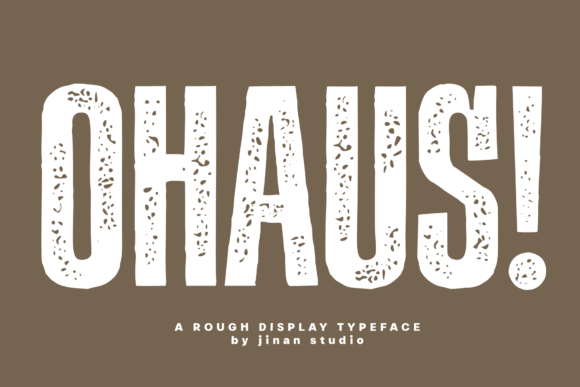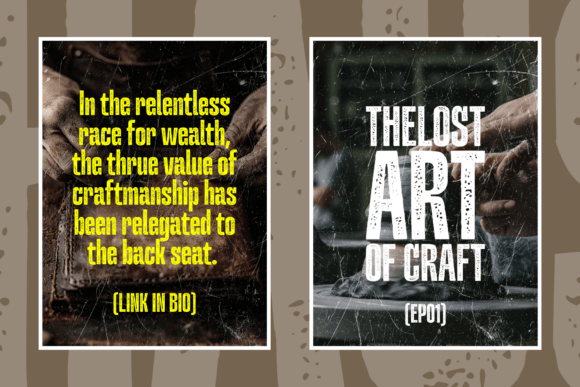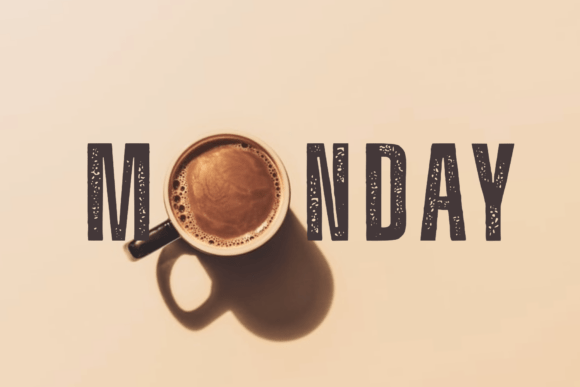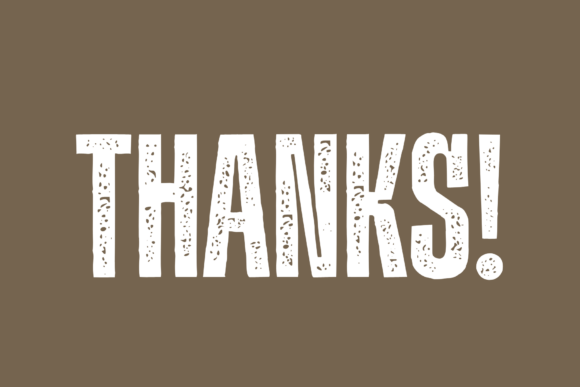
Ohaus Font
Ohaus! is a bold and rugged display typeface that packs a punch with its rough, hand-crafted texture. Its strong, distressed letterforms bring an authentic vintage vibes. Perfect for posters, branding, packaging, and headlines that demand attention. Inspired by old print textures and bold signage, Ohaus! adds raw character and strength to any design. Whether you’re creating a retro look or something daringly modern, this typeface stands out with attitude and grit.